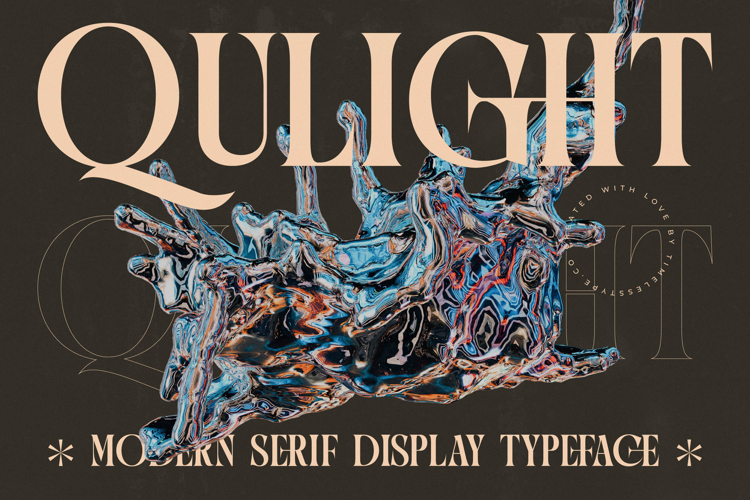
Qulight - Modern Serif Display Typeface
Unleash unparalleled elegance with Font Qulight - Modern Serif Display Typeface Serif Display, a typeface meticulously designed to command attention. This modern serif display font masterfully blends classic sophistication with a contemporary edge, featuring striking high-contrast strokes and refined serifs that exude a sense of luxury and artistic flair. It’s the perfect choice for projects demanding both impact and grace.
Crafted for distinction, Font Qulight - Modern Serif Display Typeface Serif Display offers an authoritative presence that immediately elevates your design. Its bold yet graceful letterforms provide exceptional readability at display sizes, making it ideal for impactful headlines and statement-making titles. The unique interplay of thick and thin strokes ensures visual interest and a polished aesthetic in every application.
Expand your creative horizons globally with the inherent adaptability of Font Qulight - Modern Serif Display Typeface Serif Display. With its extensive multilingual support, Font Qulight - Modern Serif Display Typeface Serif Display adapts seamlessly across global markets, making it incredibly versatile for international projects. This comprehensive language coverage ensures your message resonates clearly, no matter the audience.
Perfectly suited for elevating premium brands, Font Qulight - Modern Serif Display Typeface Serif Display is your go-to for luxury branding, editorial design, high-end packaging, and fashion magazines. Its sophisticated charm lends itself beautifully to impactful advertising, exclusive product labeling, and elegant invitations. Choose Font Qulight - Modern Serif Display Typeface Serif Display to infuse your designs with timeless class and unmistakable prestige.